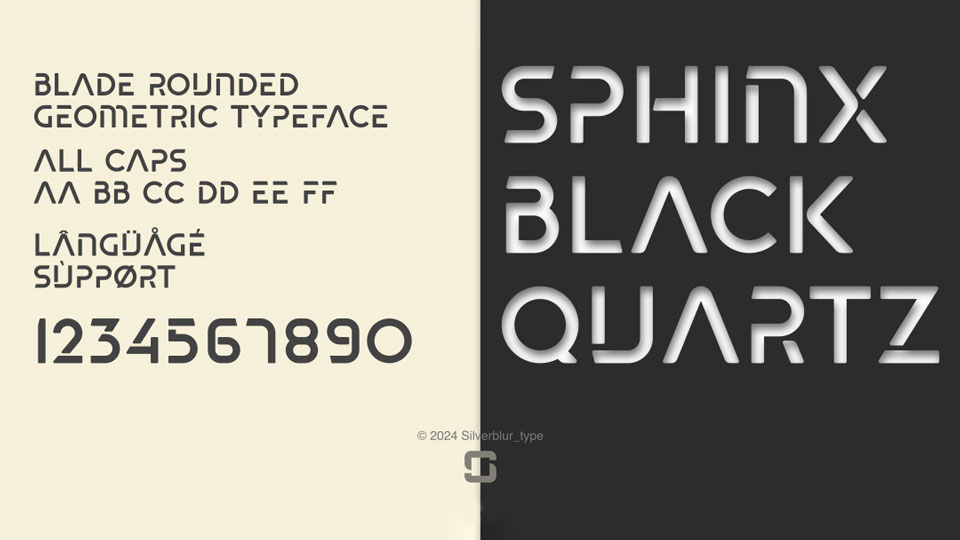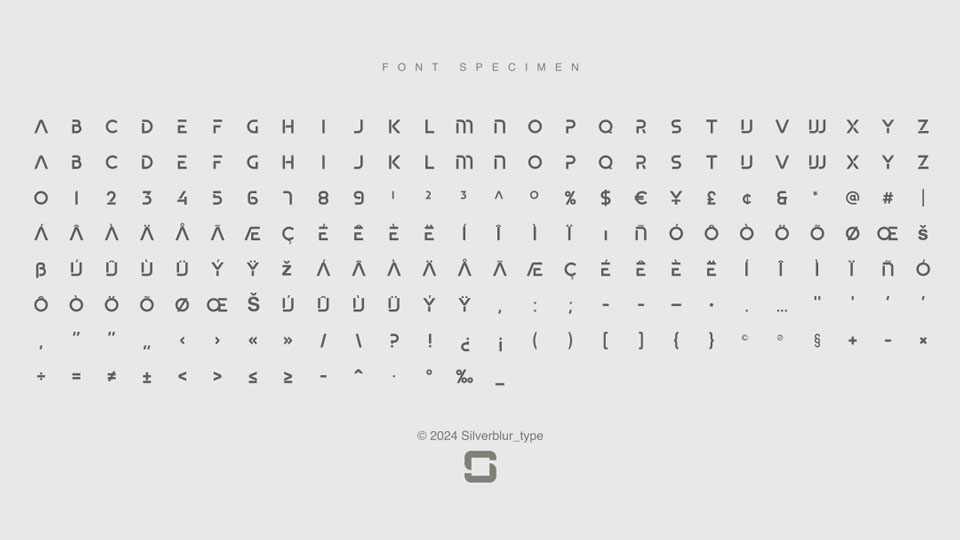
Blade Rounded
Blade Rounded is a futuristic rounded sans serif typeface designed by Valerio Brotto (Silverblur_type). Its letterforms have wide, geometric proportions, smooth corners, and blade-like horizontal cuts that give the alphabet a technical, mechanical rhythm. The strokes are fairly heavy with low contrast, creating a solid display style that remains readable in short words and large sizes. Its mood is modern, industrial, and slightly sci-fi, with a clean structure softened by rounded terminals. Blade Rounded suits logos, posters, game titles, technology graphics, sports branding, and other display settings. It is licensed under the SIL Open Font License 1.1.